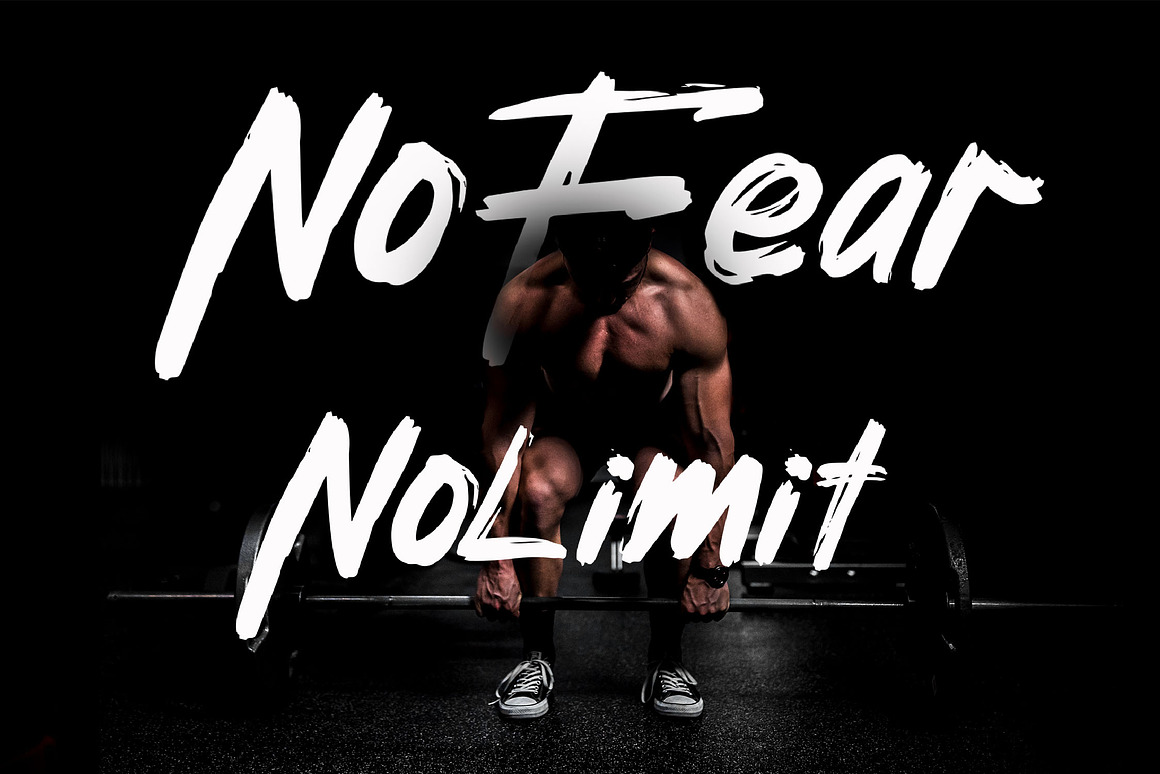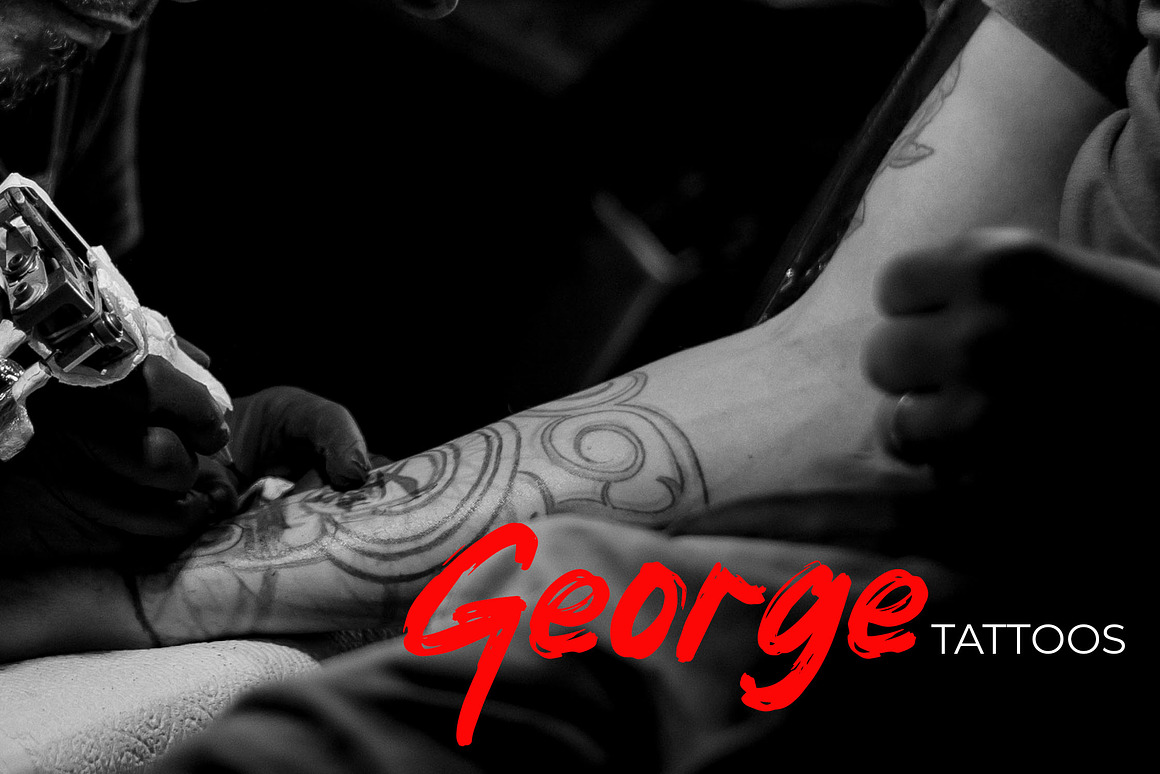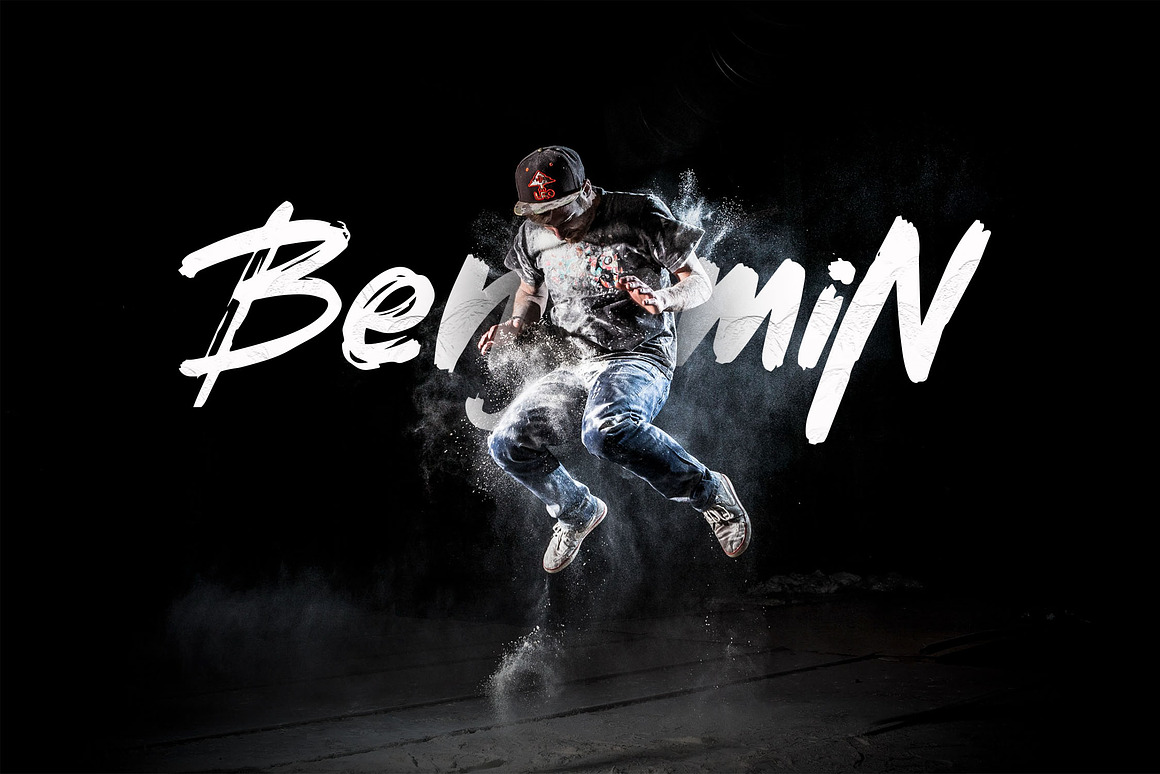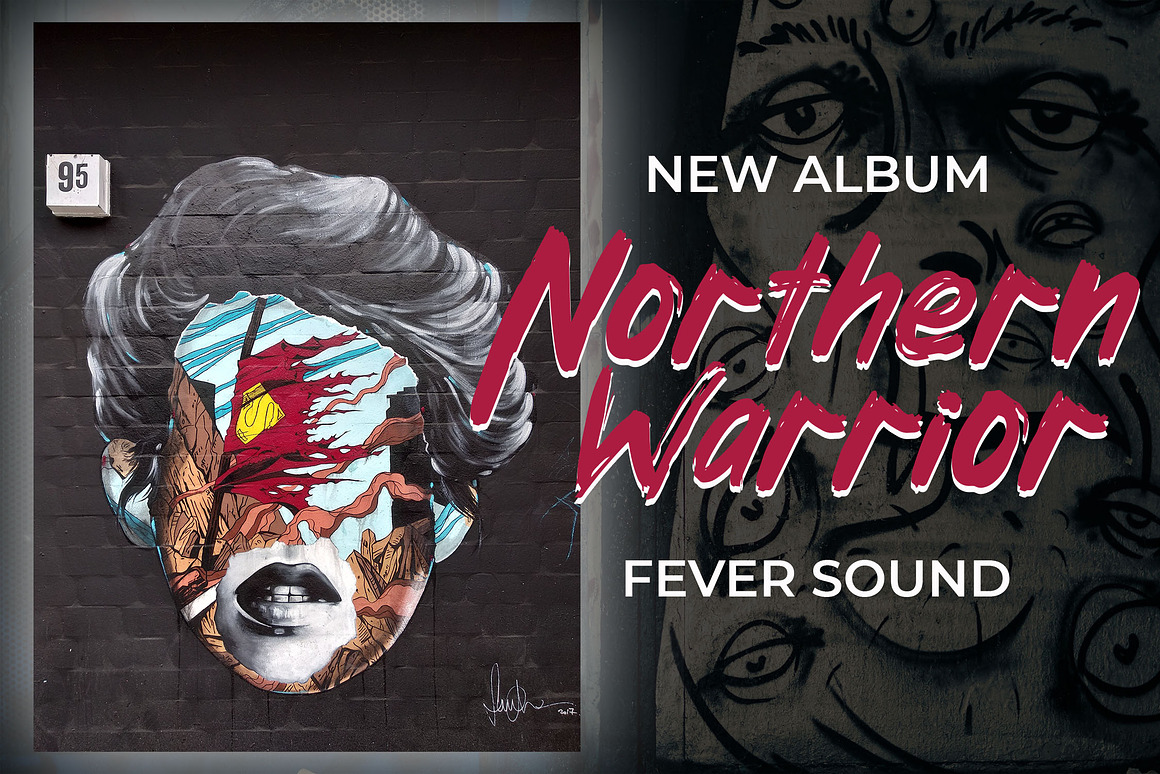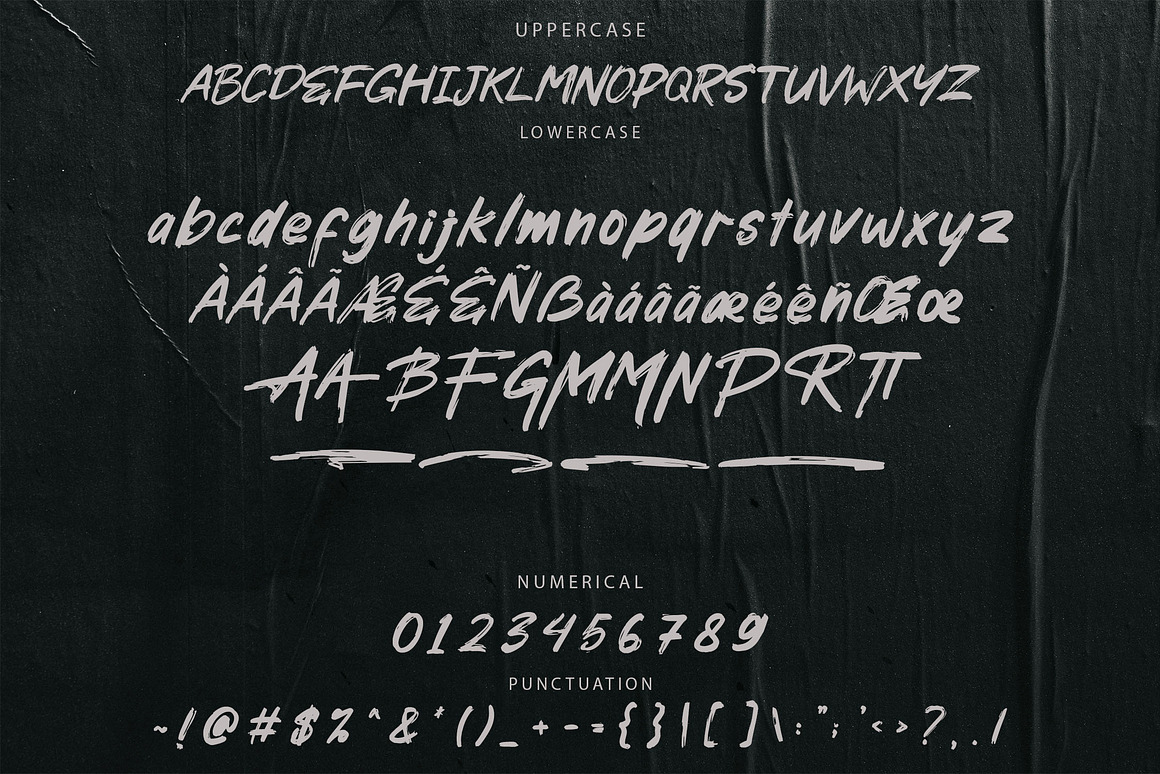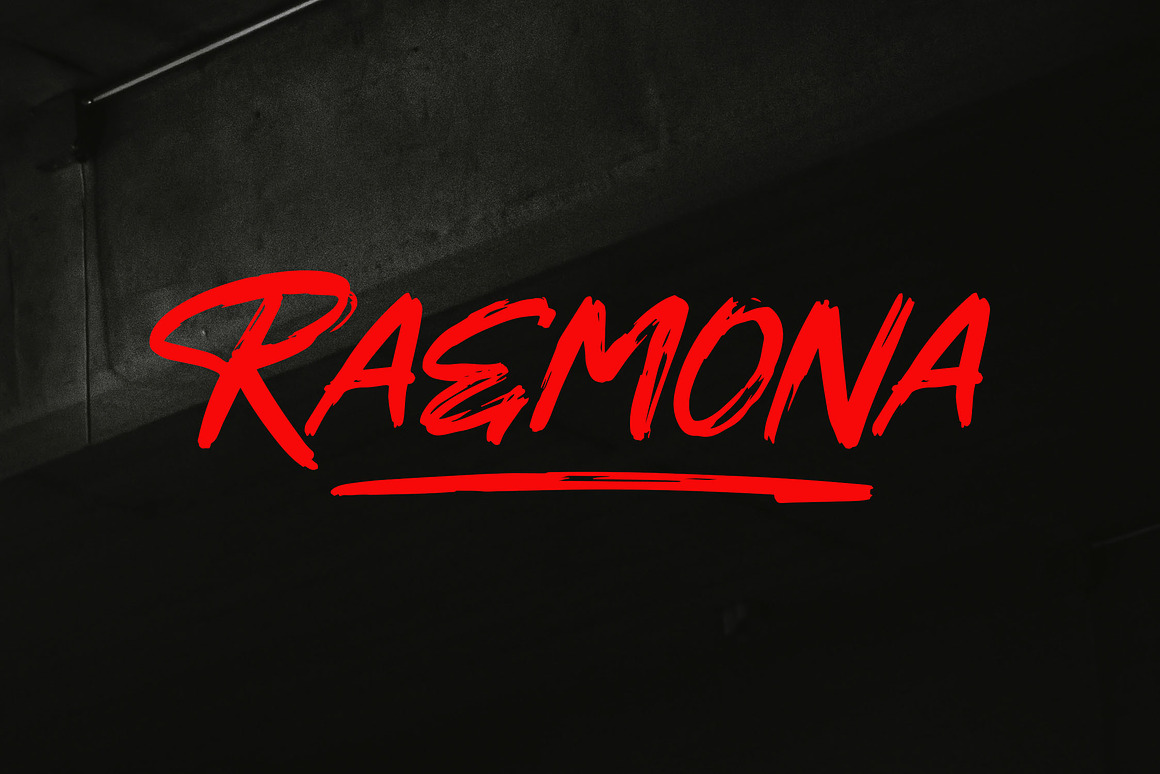
RAEMONA Rough Brush Font
RAEMONA - Bold and Rough Brush Font Introducing RAEMONA, a bold brush font with a rugged, textured style that commands attention. Featuring uniquely shaped characters, this font is perfect for adding a dynamic and edgy touch to your designs. Ideal for posters, branding, packaging, and more, RAEMONA enhances the visual appeal of any project with its bold and rough aesthetic. Thank you for downloading RAEMONA. We are committed to regularly updating the font to ensure it stays fresh and versatile for your creative needs.